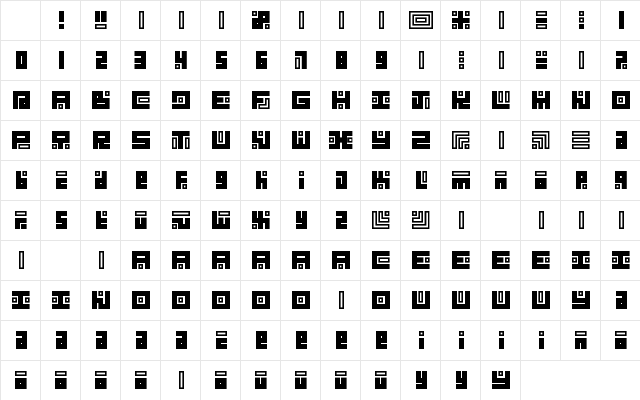
Complete Kuficology Unica Regular glyph index. Displaying only characters natively supported by Kuficology Unica Regular font.
Kuficology Unica is a composed and adaptable typeface that performs quietly and consistently across a wide range of design contexts.